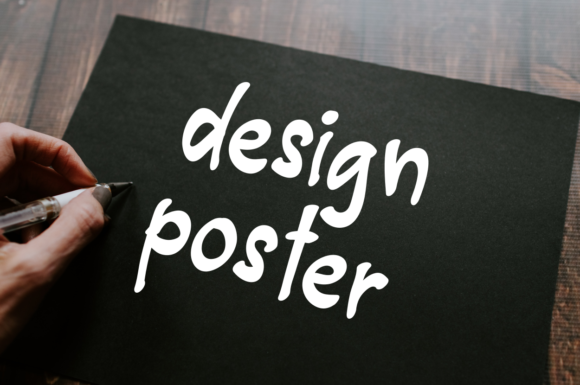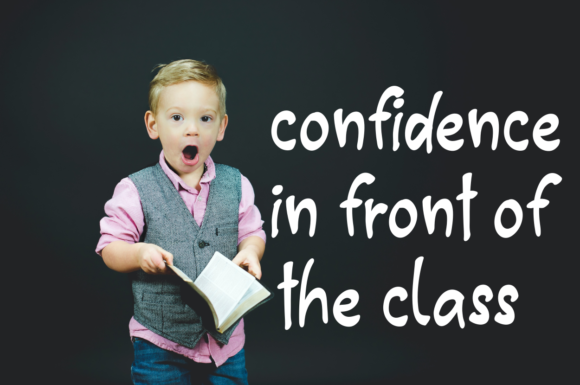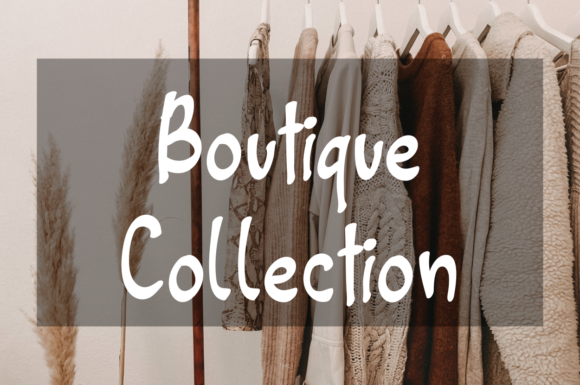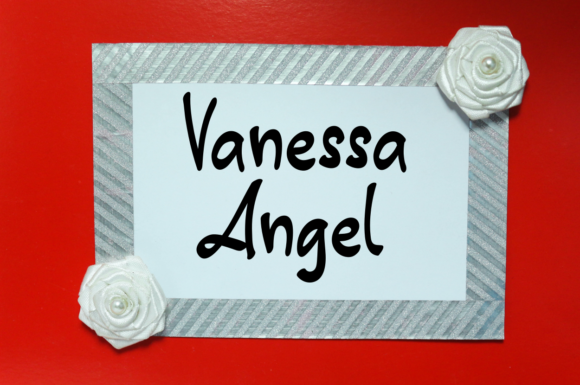
Discover the Whimsical Charm of Flower Child Font
In the world of typography, fonts can evoke emotions, convey personalities, and set the tone for any design project. If you’re a designer, crafter, or DIY enthusiast looking for a font that exudes a carefree and playful vibe, look no further than the Flower Child font. This delightful font is perfect for adding a touch of whimsy and charm to your informal or casual designs, making them stand out in a crowd.
The Essence of Flower Child Font
Flower Child font is a modern, trendy, and adaptable typeface that feels fresh and youthful. Its unique design elements are inspired by the free-spirited and bohemian style of the 1960s and 1970s, but with a contemporary twist that makes it suitable for a wide range of creative projects. Whether you’re working on a DIY craft, a social media graphic, or a branding project, Flower Child font is sure to bring a smile to your audience’s faces.
Key Features of Flower Child Font
- Playful and Whimsical Design: Flower Child font boasts a playful and whimsical design that’s perfect for creating eye-catching and engaging content.
- Trendy and Adaptable: This font feels equally trendy and adaptable, making it suitable for a wide range of design projects, from informal to casual.
- Easy to Read: Despite its playful design, Flower Child font is easy to read, making it perfect for body text, headings, and titles.
- Versatile: This font can be used for a variety of design projects, including DIY crafts, social media graphics, branding, and more.
How to Use Flower Child Font in Your Designs
Adding Flower Child font to your designs is easy and can make a significant impact. Here are a few ideas to get you started:
- DIY Crafts: Use Flower Child font to add a personal touch to your DIY craft projects, such as handmade cards, gift tags, and scrapbooking.
- Social Media Graphics: Add a playful touch to your social media graphics, such as Instagram posts, Facebook covers, and Twitter headers.
- Branding and Packaging: Use Flower Child font to create eye-catching branding and packaging designs that stand out on store shelves.
- Stationery and Invitations: Add a touch of whimsy to your stationery and invitations, such as birthday cards, wedding invitations, and baby shower announcements.
Tips for Pairing Flower Child Font with Other Fonts
Pairing Flower Child font with other fonts can create a unique and visually appealing design. Here are a few tips to keep in mind:
- Contrast with Bold Fonts: Pair Flower Child font with bold, sans-serif fonts to create a striking contrast.
- Match with Script Fonts: Combine Flower Child font with script fonts for a playful and elegant look.
- Use with Serif Fonts: Pair Flower Child font with serif fonts for a sophisticated and whimsical design.
Flower Child font is a versatile and trendy typeface that’s perfect for adding a touch of whimsy and charm to your designs. Its playful and adaptable design makes it suitable for a wide range of creative projects, from informal to casual. Whether you’re a designer, crafter, or DIY enthusiast, Flower Child font is sure to become a favorite in your design toolkit. So why not give it a try and see how it can make your designs stand out?